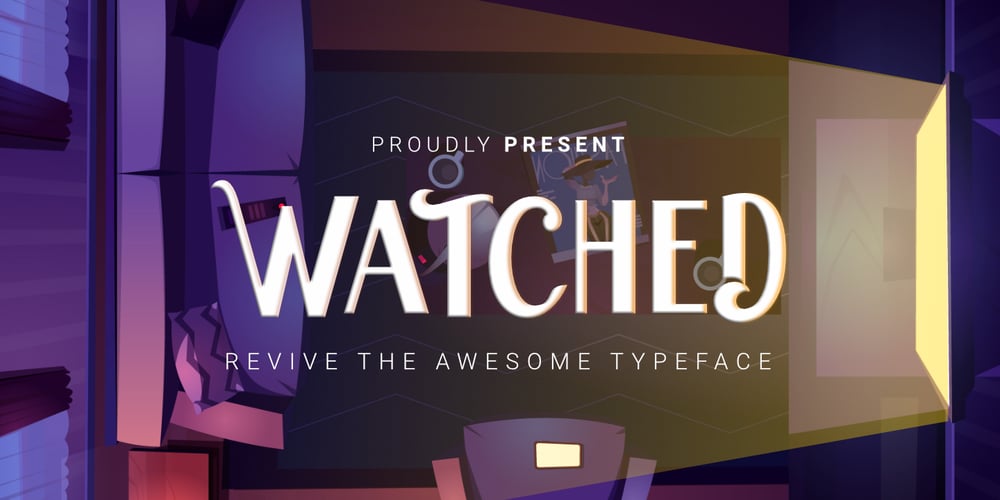
Watched
Watched font
Watched Font Family was designed by Toni Dzulham and published by Dumadi. Watched contains 1 styles and family package options. Hi, I hope your project is always smooth!Watched is a new font with a unique, quirky, and relaxed style. All uppercase letters have a unique variation and are complemented by combinations of lowercase letters that create a stunning writing style.This font is very suitable for movie titles, such as famous movie titles, with this font, your project will be noticed by many people. try it and feel the difference!